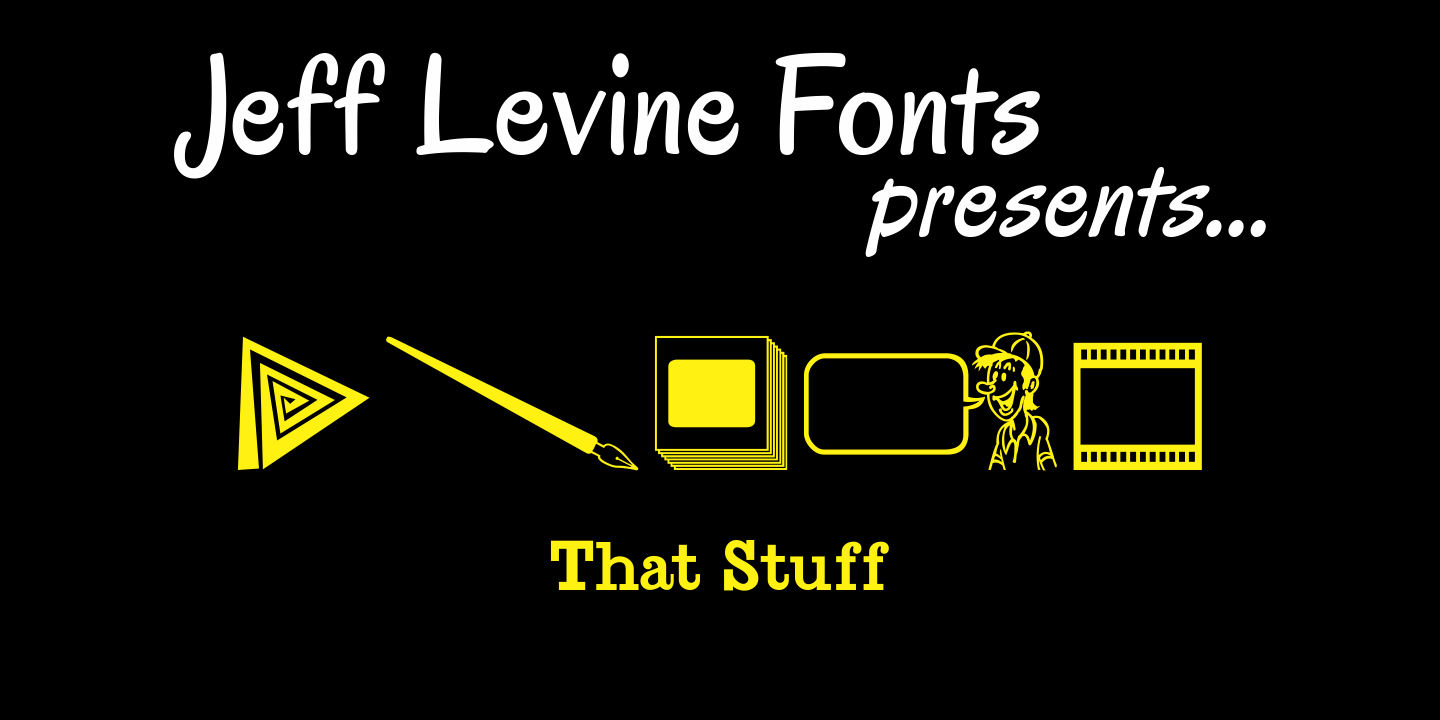
That Stuff
That Stuff JNL is a collection of twenty-six images ranging from a stop sign to a peace sign... from a daisy to some 35 mm slides... from smiley and unhappy faces to a rubber stamp and a prize ribbon... A little bit of this and that for the creative designer.
That Stuff JNL Regular by Jeff Levine Fonts